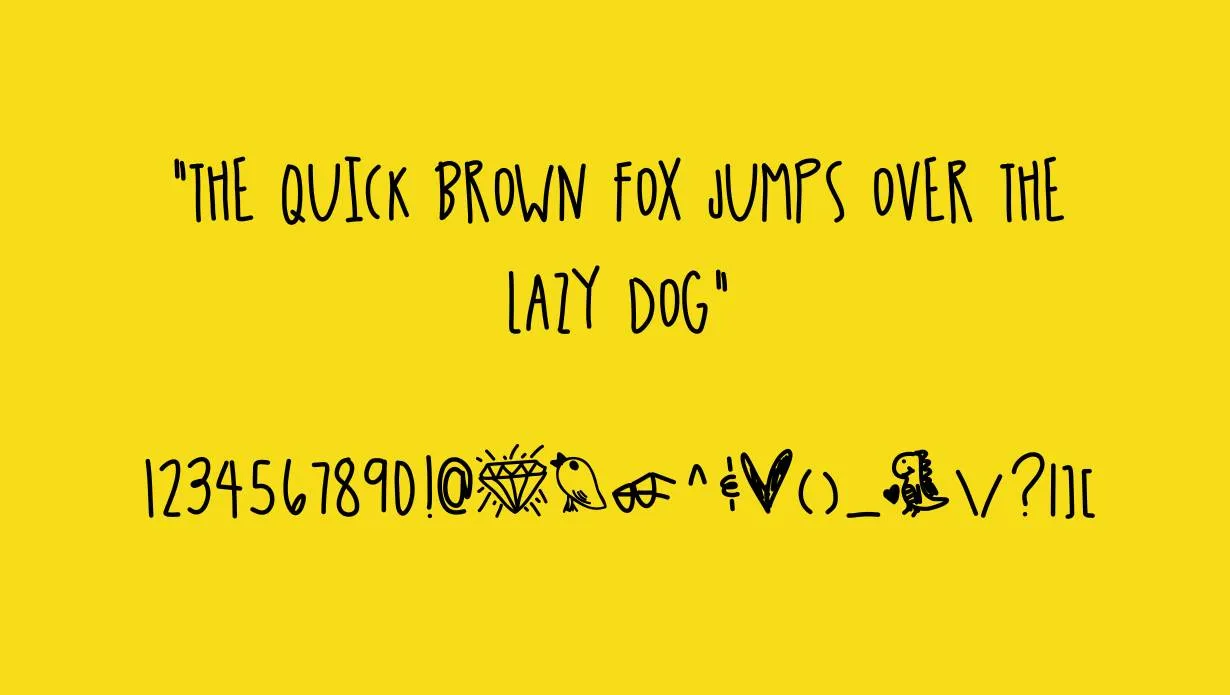
The Chamberline and Doodle Vector font offers a playful and artistic aesthetic, often embraced in creative designs, playful invitations, or whimsical projects. It creates handcrafted logos or headings in programs like Illustrator.
With support for various formats like TTF, OTF, and EOT, it’s a versatile choice for online designs, infusing an imaginative and artisanal touch into diverse projects. Enhance the appeal of your design project by combining this font with another distinctive typeface, such as the gomawo font.